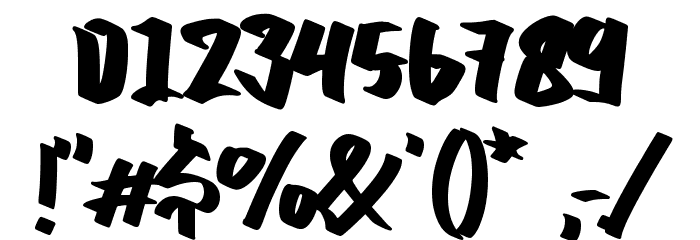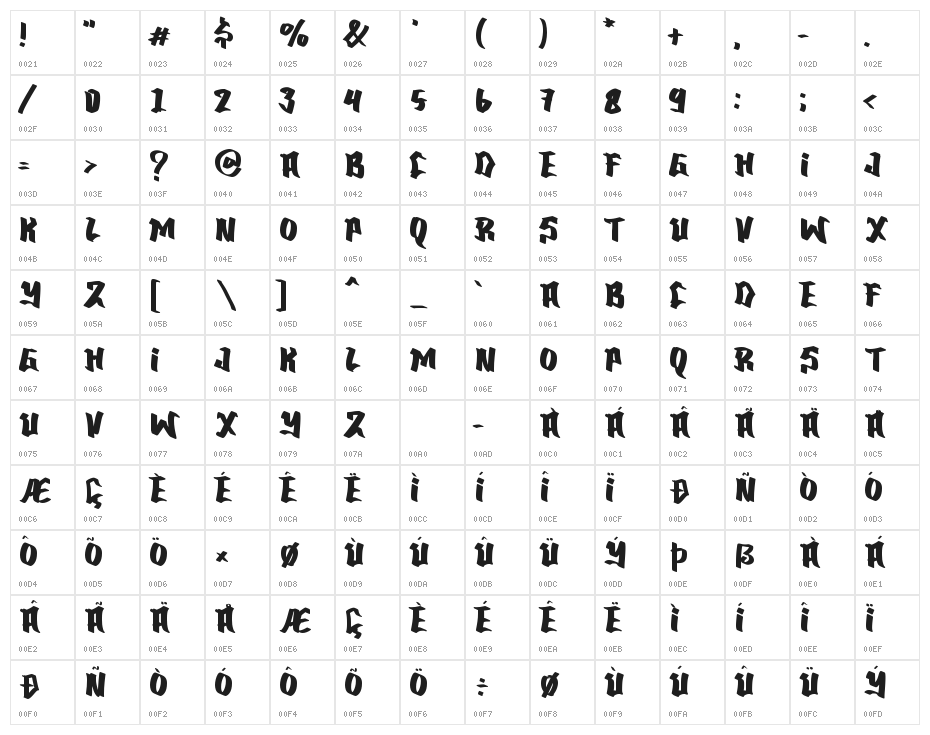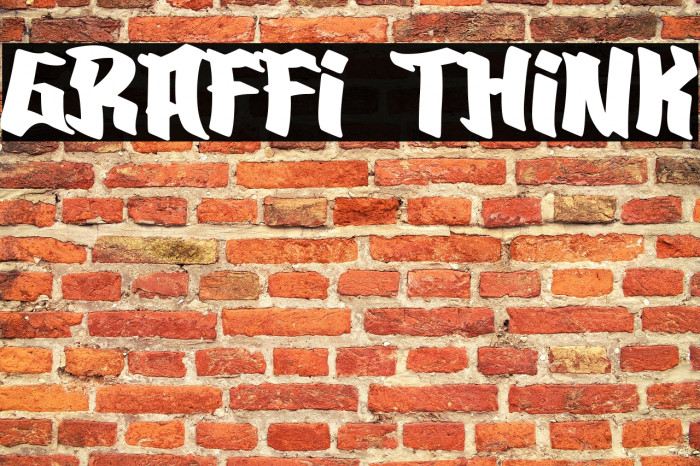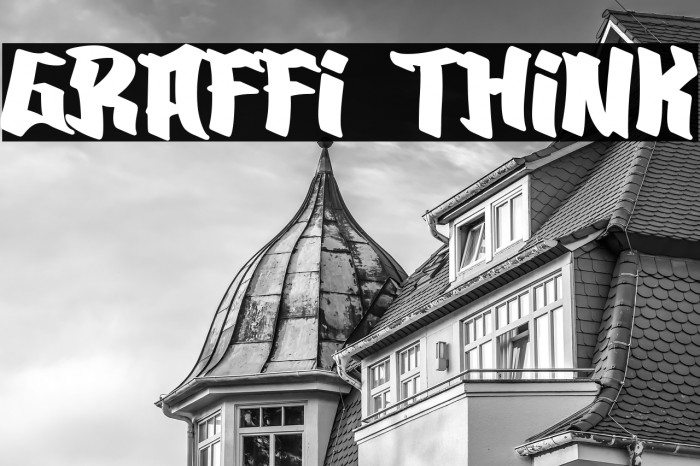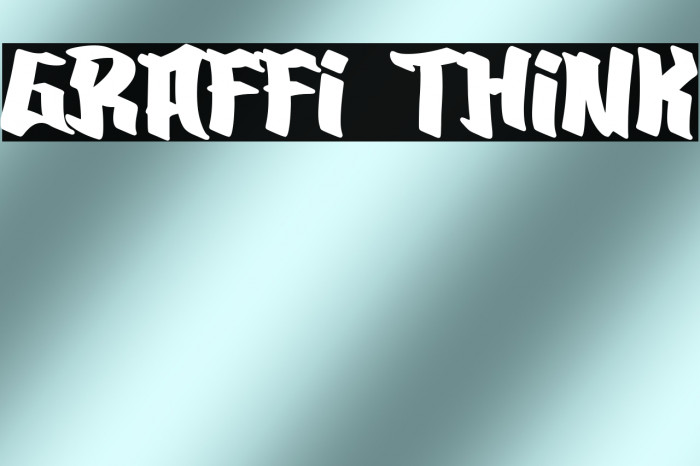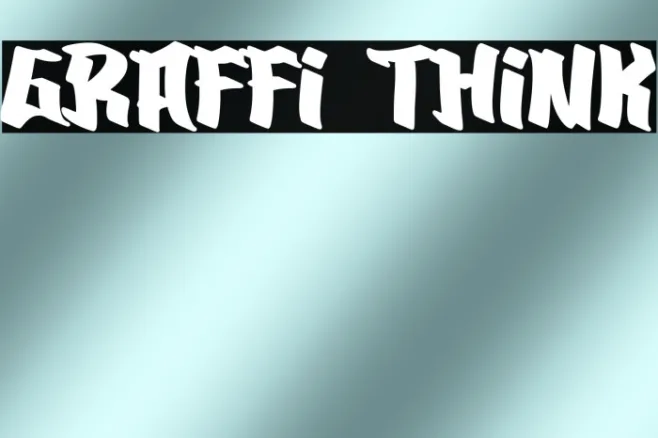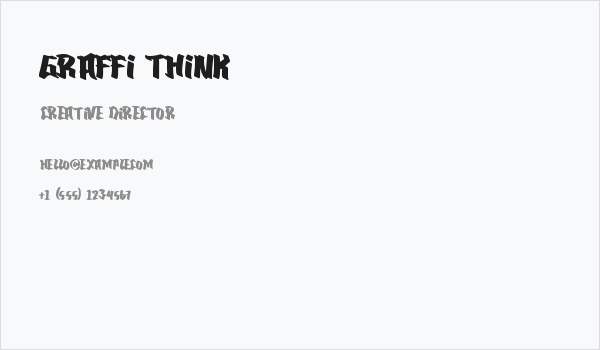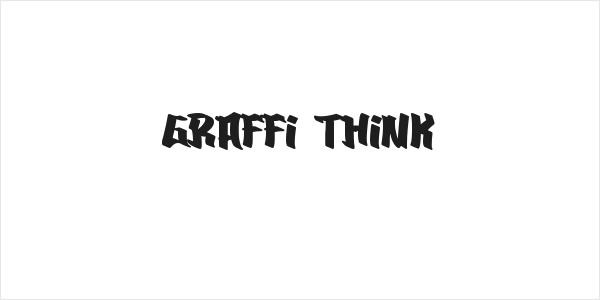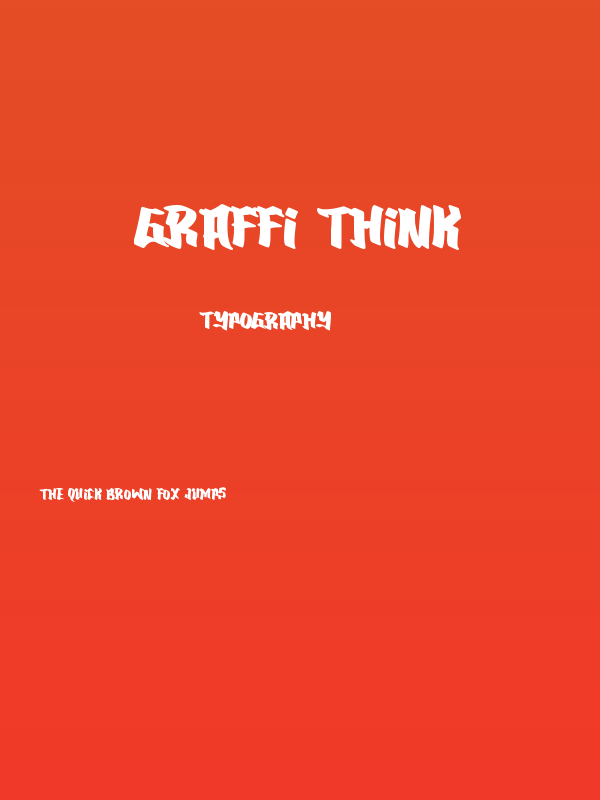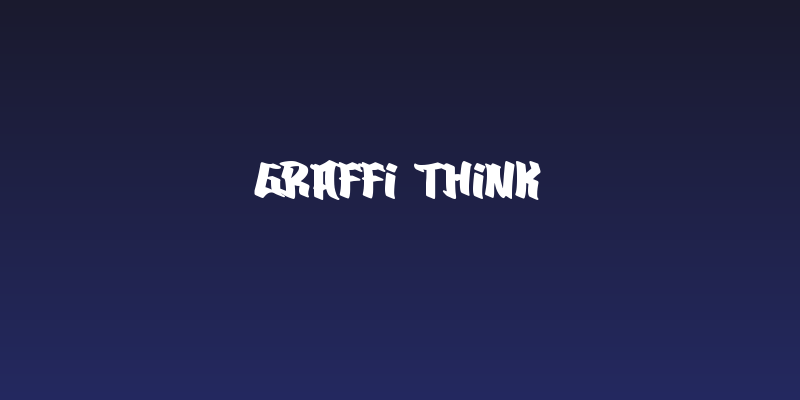
Graffi Think Font
Graffi Think Description
This font exudes a bold and dynamic graffiti style, characterized by its sharp angles and thick strokes. The uppercase and lowercase letters maintain a consistent, edgy appearance, with exaggerated curves and pointed ends that evoke a sense of movement and urban flair. The numerals and special characters follow the same aesthetic, ensuring a cohesive look across all elements. Its distinct style makes it ideal for projects that require a strong visual impact and a modern, street-inspired vibe.
| Overall Style | Modern, Urban |
| Proposed Projects | Perfect for street art designs, urban-themed posters, music album covers, and edgy branding projects. |